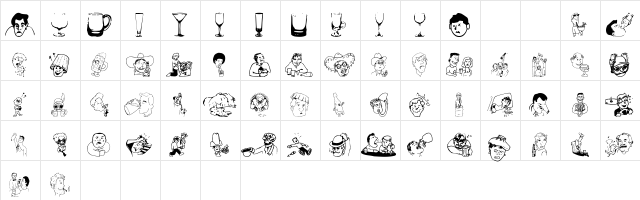
BoozeBats Regular Font Preview
BoozeBats Regular
Design Context for BoozeBats Typeface
BoozeBats is a composed and adaptable typeface that performs quietly and consistently across a wide range of design contexts.